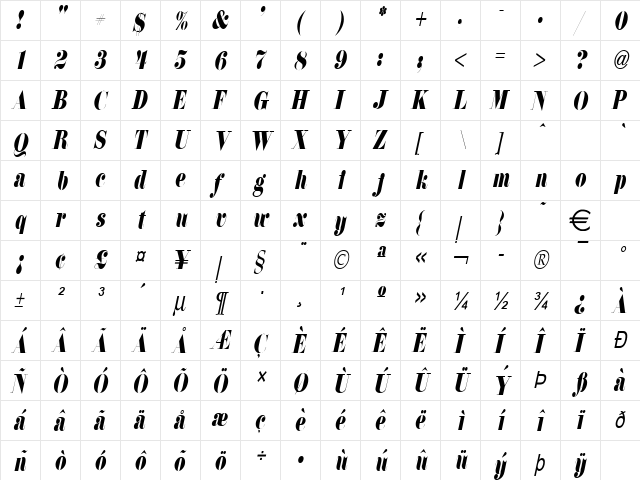
FloralCondensed Italic Font Preview
Design Context for FloralCondensed Typeface
FloralCondensed takes a measured approach to typography — its balanced proportions and neutral character make it a reliable workhorse for both digital and print work. The dynamic lean of this cut emphasises speed and emphasis in any layout. The condensed width makes it efficient for tight spaces without sacrificing legibility.
Pro Tip: Use FloralCondensed for emphasis, pull quotes, and subheadings where its slanted energy can add rhythm to the layout.